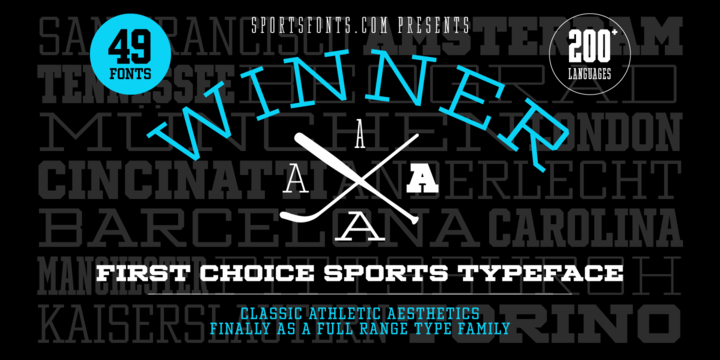
Winner Cond Regular Font
Introducing a versatile contemporary font family, which is Winner font family. Winner was designed by sportsfonts. With seven weights in seven widths, you’ll definitely find the right proportions for it! Winner supports not only most Latin-based languages but also Greek. Its extensive character set also contains currency signs, arrows, as well as a wide range of numerals from small figures to Roman numerals. With more than 24,000 glyphs in 49 fonts, Winner leaves nothing to be desired.